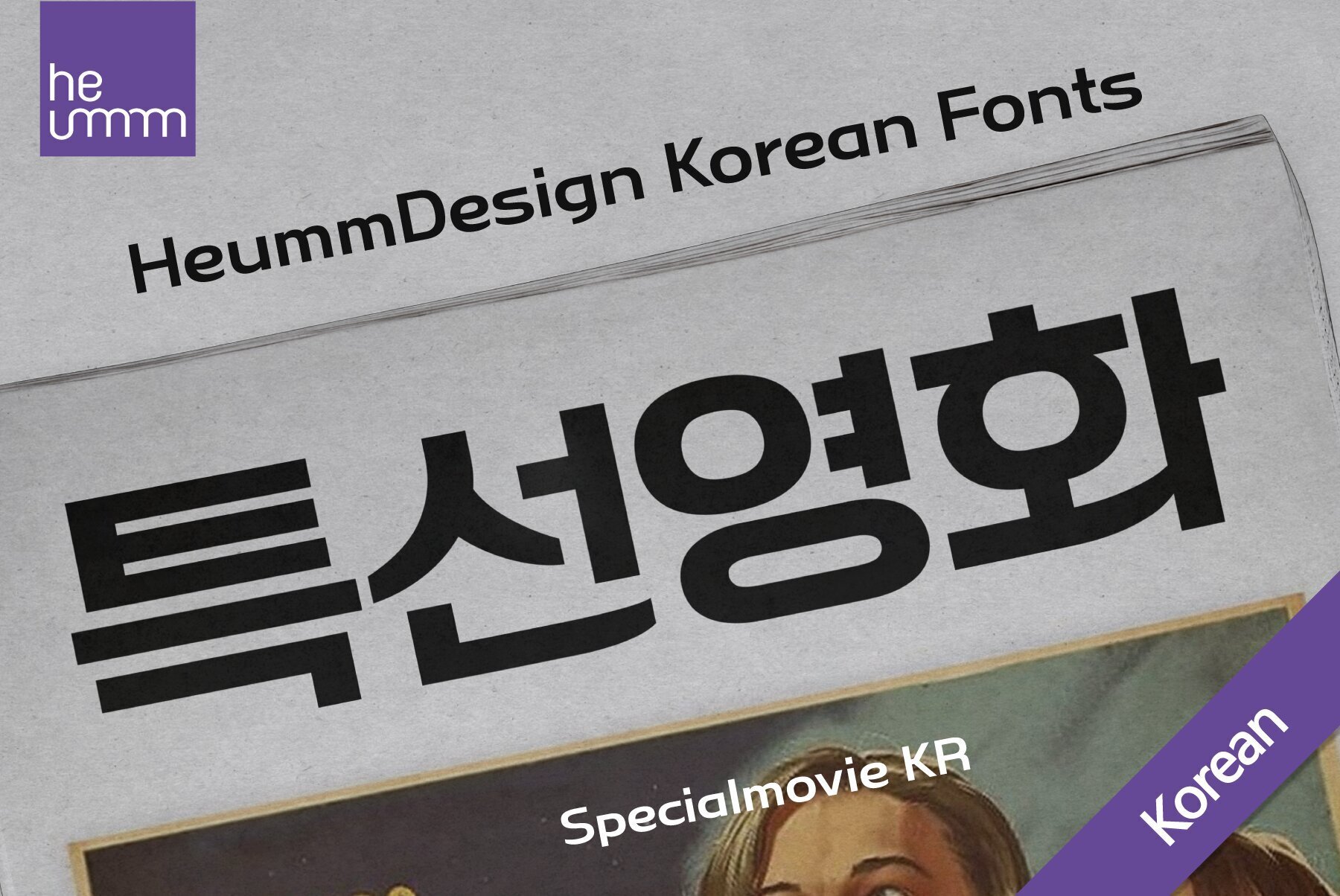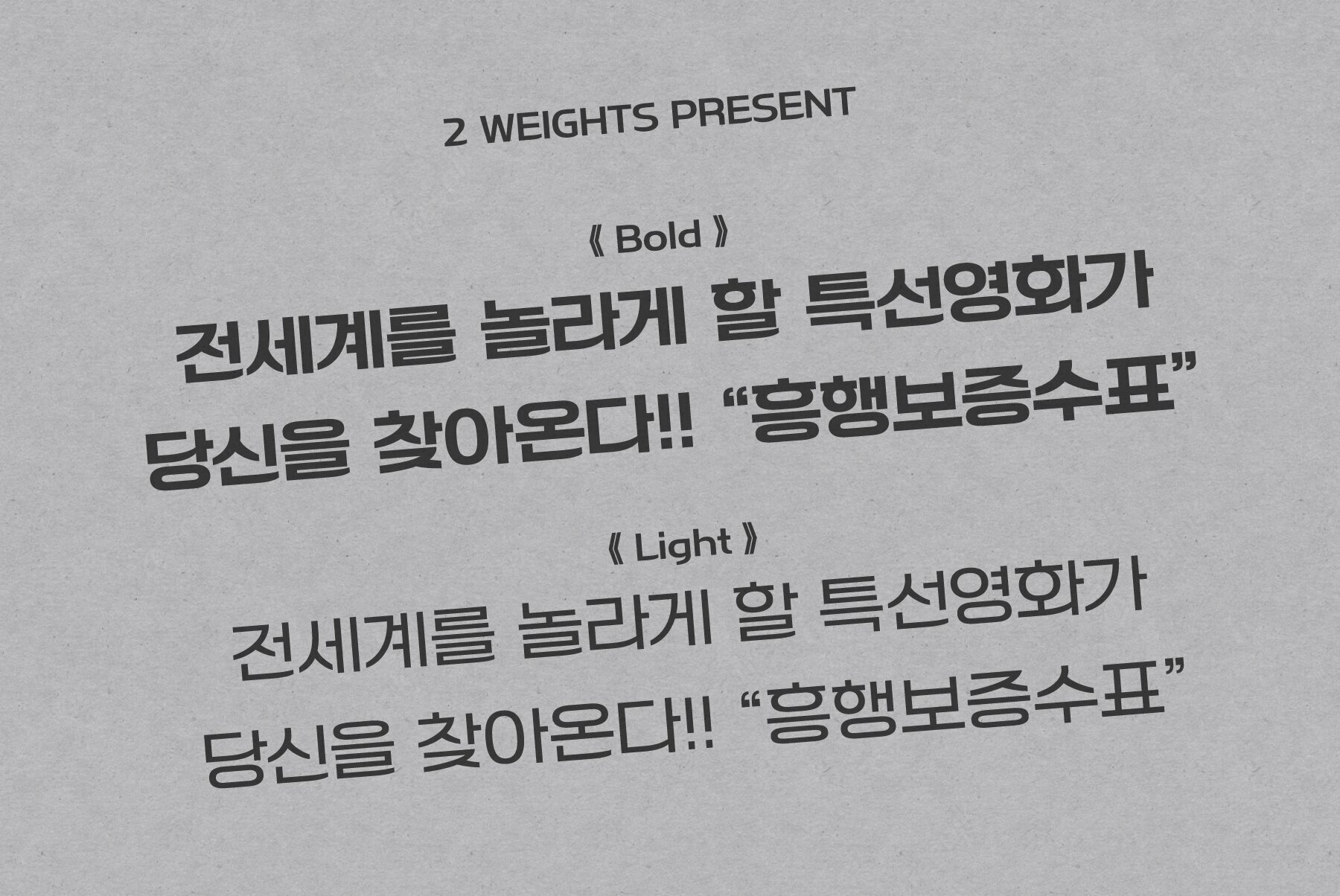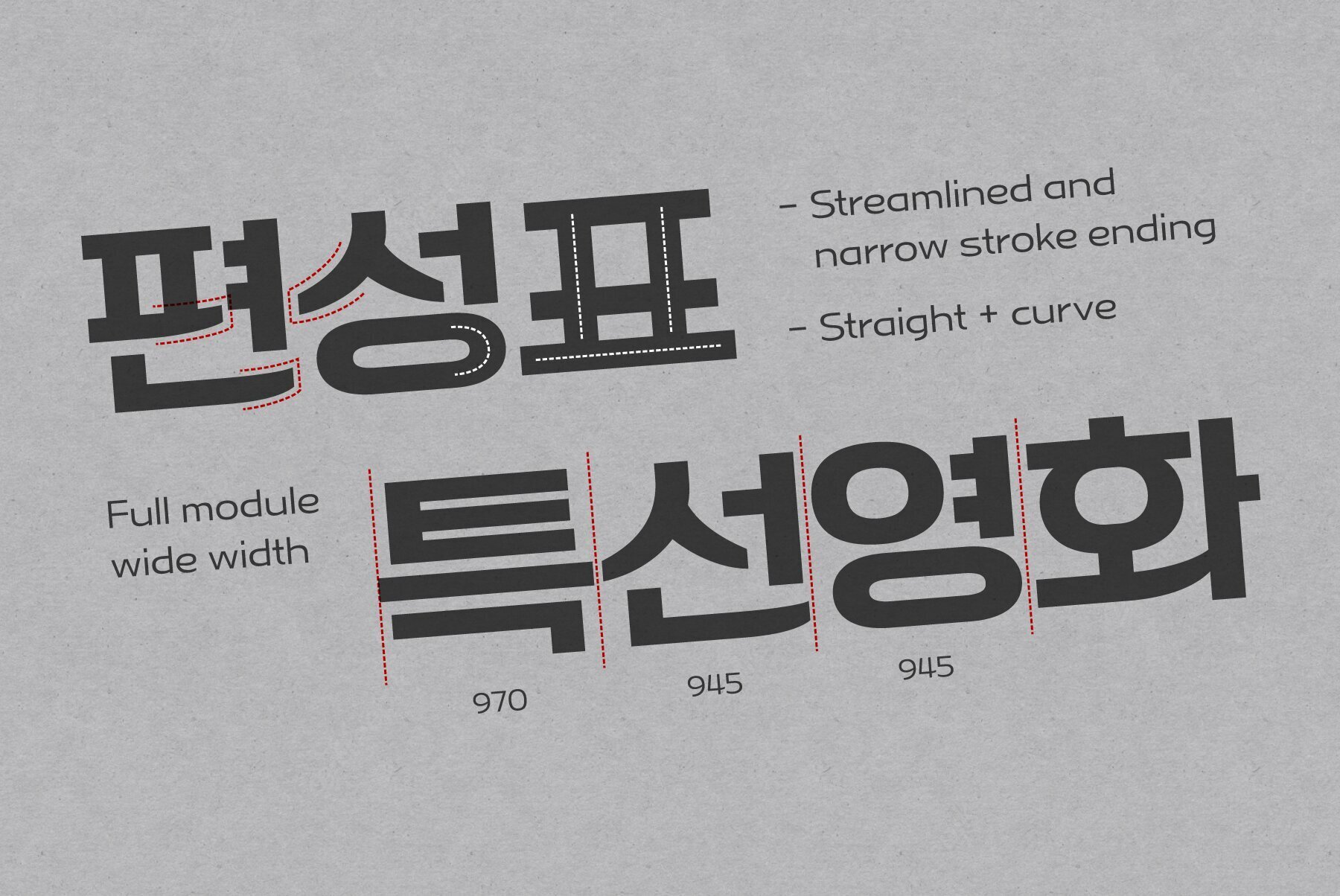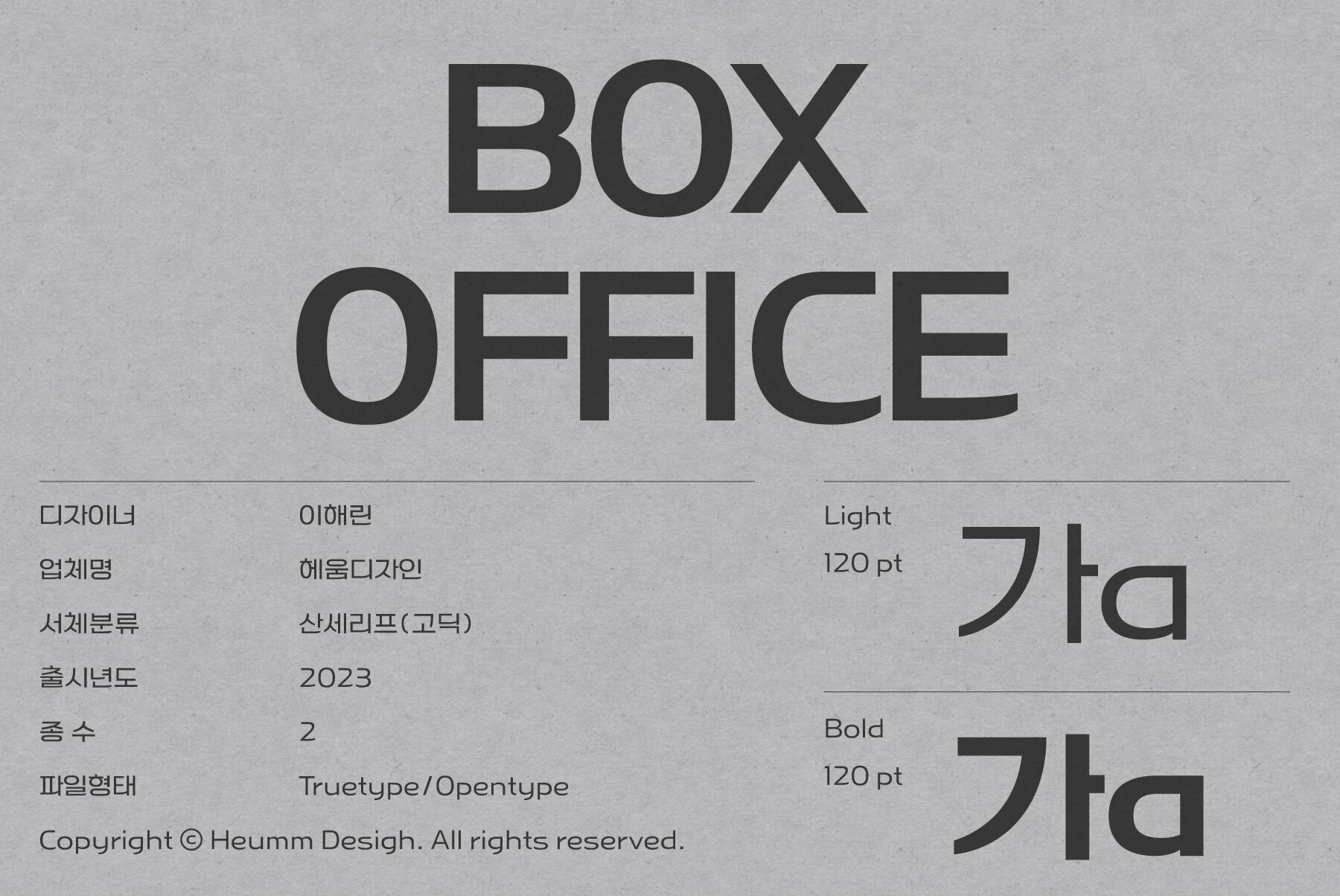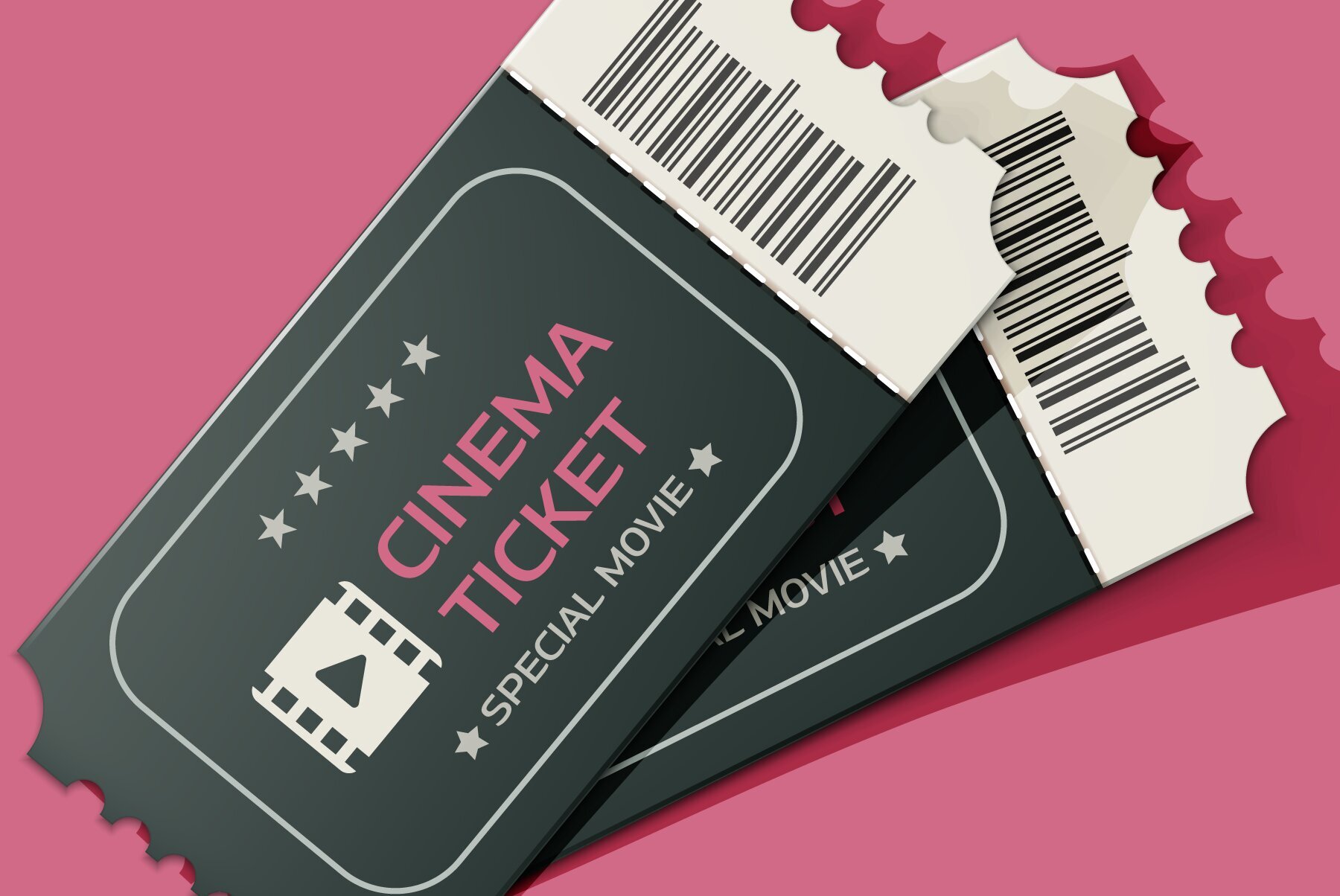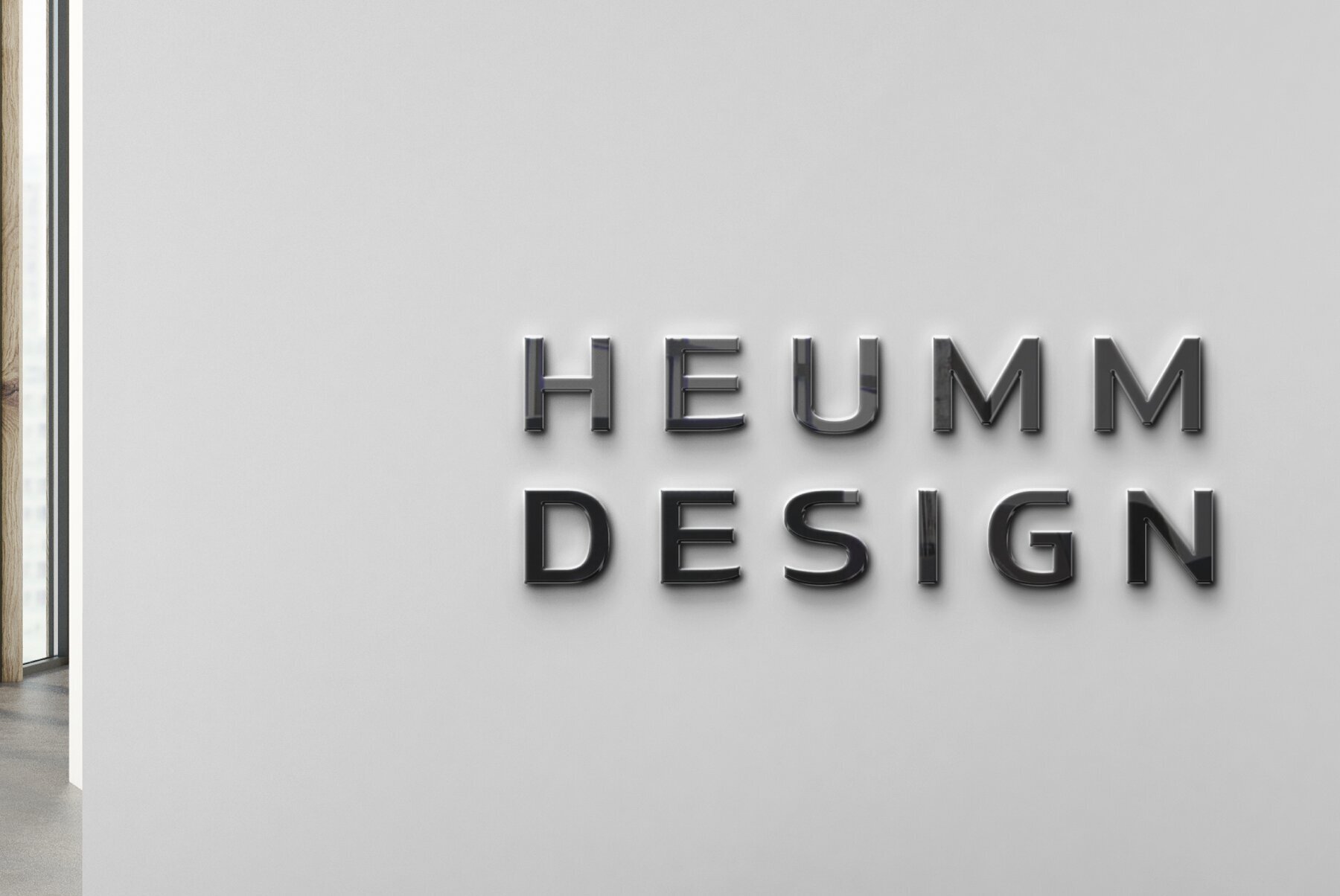
HU Specialmovie KR Font
HU SpecialmovieKR is a retro, wide square typeface, characterized by streamlined, narrow stroke ends such as 'ㄴ,ㅅ,ㅈ'. The first consonants are designed to be large with full modules to improve readability. The grapheme 'ㅇ', which is the face of the font, is in the form of a square in harmony with straight lines and curves, expressing a solid and simple feeling overall.